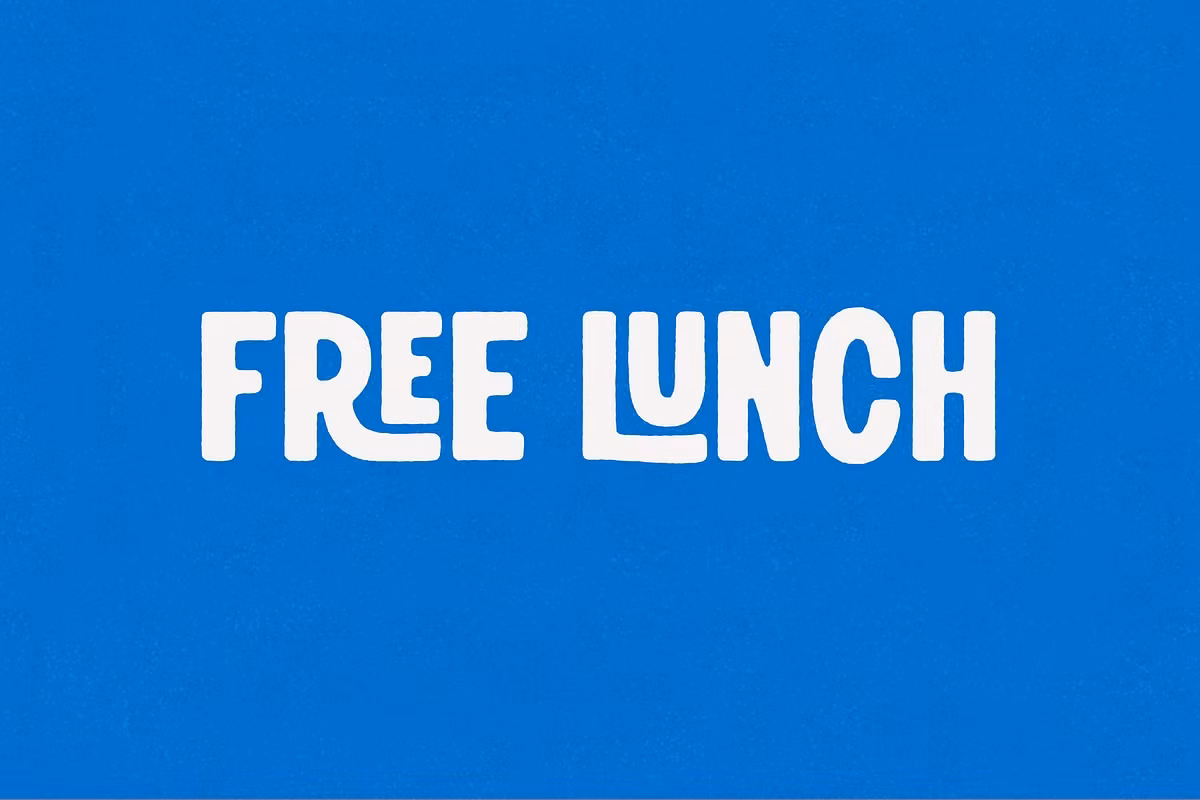
Free Lunch — Vintage Lettering Font Free Download is a bold and character-rich typeface inspired by classic diner signs, hand-painted advertisements, and mid-century Americana. With its retro curves, thick strokes, and nostalgic charm, this font is perfect for logos, vintage posters, menus, product packaging, and any design that craves an old-school vibe with personality.
Crafted to emulate authentic vintage lettering, Free Lunch brings a handcrafted feel that instantly adds warmth and storytelling to your project. It’s a great choice for brands and creatives looking to evoke a sense of heritage, fun, and authenticity.